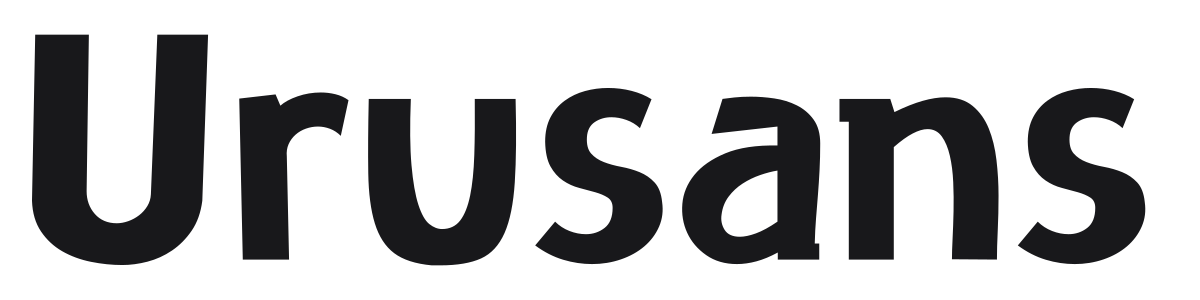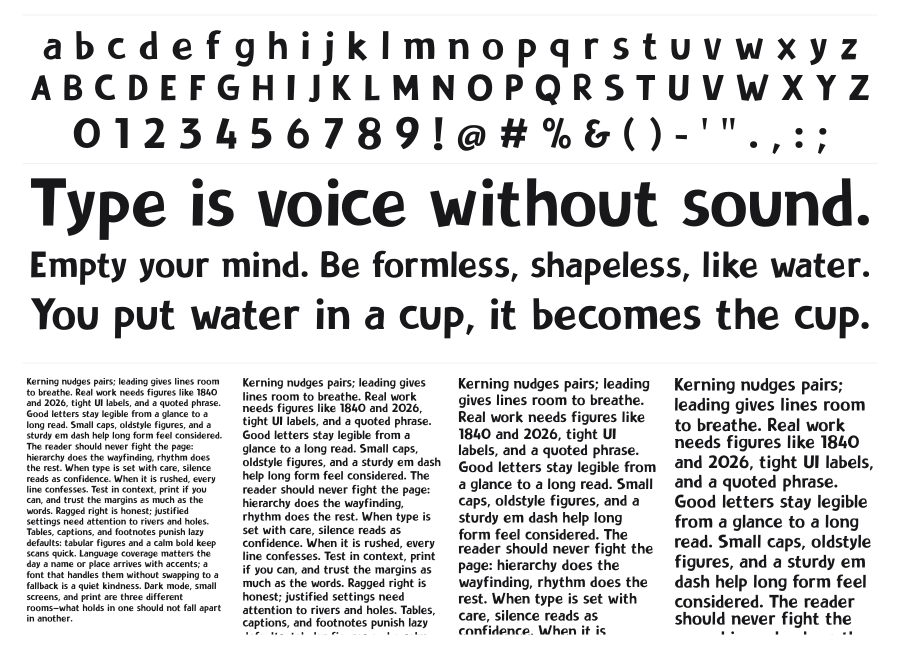
Urusans
Urusans is a bold humanist sans with a punk attitude, shaped by the irregularities of informal handwriting. Slight variations in stroke weight and letter construction give it a hand-drawn restlessness that standard grotesques lack. It works loudly at large sizes on music posters, editorial headers, and apparel graphics.